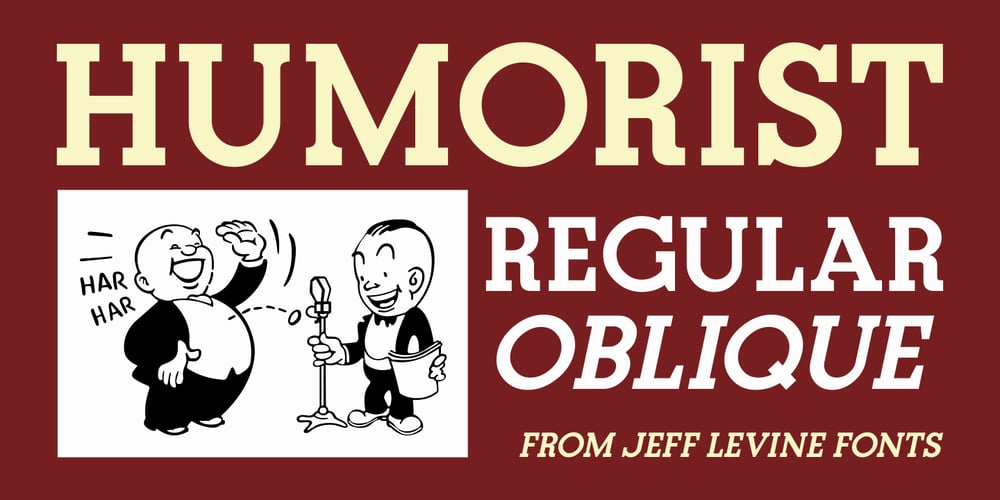
Humorist JNL Font Family was designed by Jeff Levine and published by Jeff Levine. Humorist JNL contains 2 styles and family package options. The May 7, 1936 issue of “The Film Daily” carried an ad for the Will Rogers Memorial Hospital Fund. (In August of 1935 Rogers, along with famed aviator Wiley Post died in a plane crash.)While the fundraising for the hospital was a serious event, Rogers is remembered as a humorist, hence the font’s name of Humorist JNL.